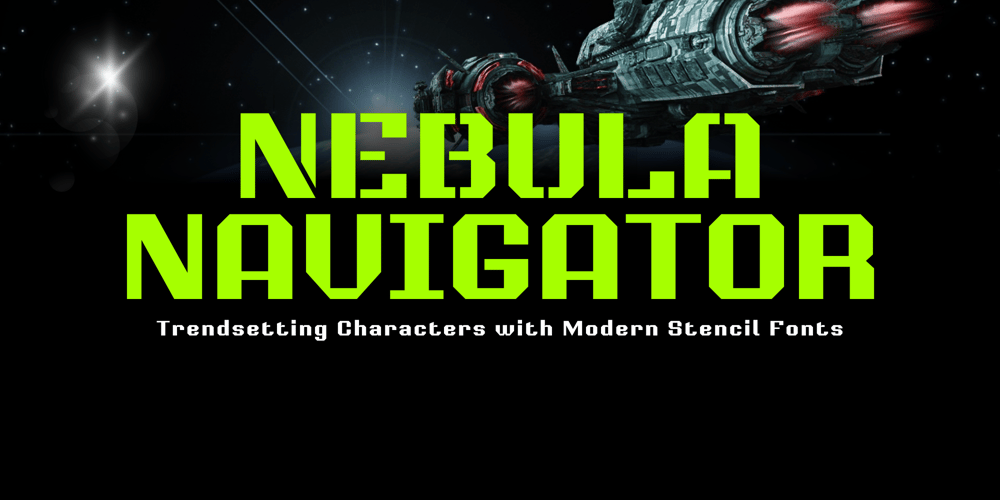
Nebula Navigator Font Family was designed by Candi Erwanto and published by Objectype. Nebula Navigator contains 2 styles and family package options. Nebula Navigator is a font designed to meet the needs of modern design. With two distinct styles, stencil and regular, this font offers incredible flexibility for a variety of design projects. Whether it’s for sharp technology posters, dynamic sports branding, or stunning space visualizations, Nebula Navigator is ready to elevate your design to a new dimension. The font provides variety with both uppercase and lowercase letters, ensuring that every word you convey has maximum impact. With the ability to adapt from subtle text to bold statements, Nebula Navigator is the perfect choice for designers looking for something truly unique and versatile.